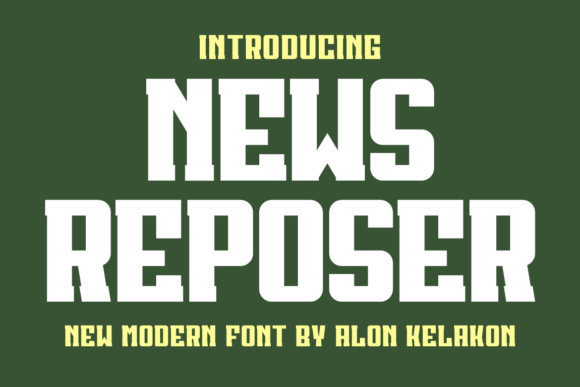
Introducing News Reposer Font - the ultimate choice for all your design needs! This stunning slab serif font, created by the talented alonkelakon, is here to elevate your projects and captivate your audience. Get ready to embark on a visual journey unlike any other.
With its unique and eye-catching design, News Reposer Font is perfect for a wide range of applications. Whether you're working on labeling, clothing designs, movie scenes, posters, or even album covers, this font is your go-to companion. It effortlessly adds a touch of sophistication and professionalism to any project, making it stand out from the crowd.
But that's not all! News Reposer Font is not just visually appealing, it also brings a sense of warmth and friendliness to your designs. Its charming characteristics are perfectly suited for creating captivating and heartfelt friendly letters. Imagine the joy and excitement your loved ones will feel when they receive a letter beautifully crafted with this font.
One of the key features of News Reposer Font is its versatility. It effortlessly adapts to any style or theme, making it a must-have for designers of all levels. Whether you're going for a modern and sleek look or a vintage and nostalgic vibe, this font has got you covered. It truly is a chameleon font that can transform your ideas into stunning realities.
But don't just take our word for it. Join the countless designers who have already fallen in love with News Reposer Font. Its popularity speaks for itself, and it's no surprise why. This font not only adds a touch of elegance to your projects, but it also evokes emotions and creates a lasting impression.